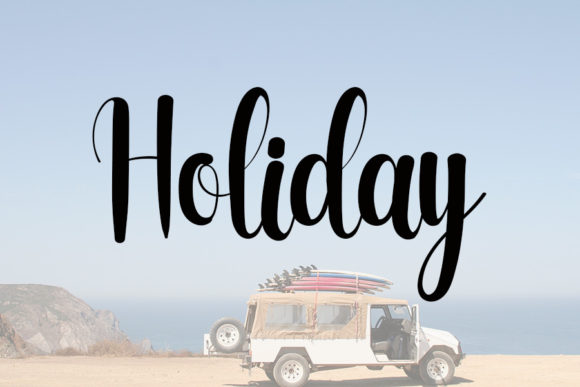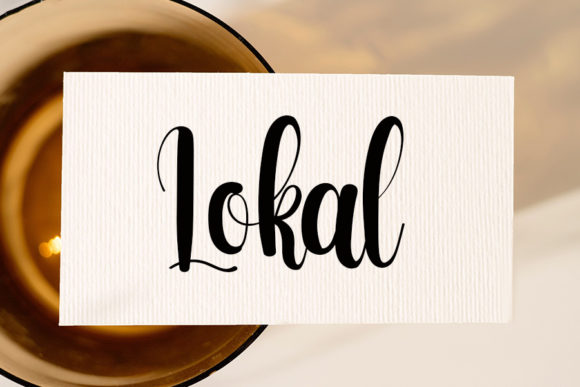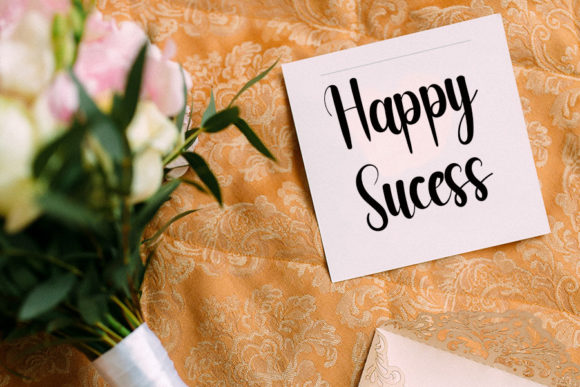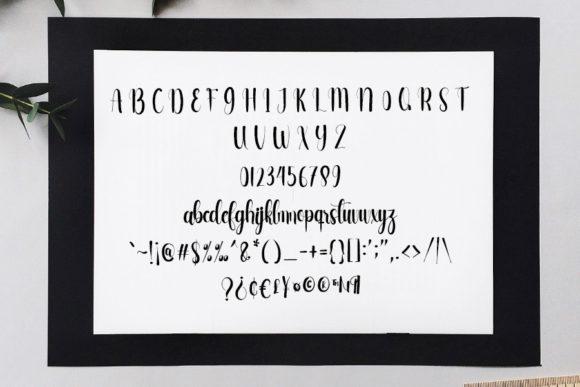
**Hunting Font: Friendly Handwritten Appeal**
Meet *Hunting Font*, a friendly handwritten typeface meticulously crafted to become a true favorite in your creative toolbox. This font strikes a balance by maintaining classy calligraphic influences while infusing a contemporary and fresh feel, creating a design that is both charming and versatile.
The inviting charm of *Hunting* lies in its ability to blend friendliness with a touch of elegance. Each letter is thoughtfully designed, capturing the essence of classic calligraphy with a modern twist. The result is a font that exudes a timeless appeal while staying relevant and approachable.
Ideal for a diverse array of applications, *Hunting* adapts effortlessly to various design scenarios. Whether you’re working on invitations, social media graphics, or any project that calls for a friendly touch, this font stands out as a reliable choice.
Consider *Hunting Font* as a delightful tool that empowers you to infuse friendliness into your designs. Each letter is a stroke of warmth, turning your projects into visually appealing works that strike a balance between classic and contemporary aesthetics.
In summary, *Hunting Font* is more than just a typeface; it’s an invitation to enhance your designs with friendly handwritten appeal. Embrace its versatility and contemporary charm, letting it become the cherished element that elevates the visual appeal of your creative endeavors.